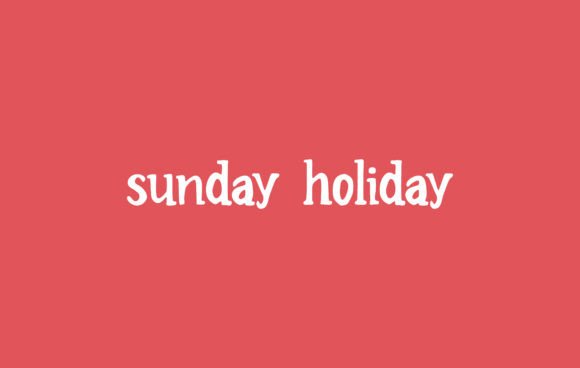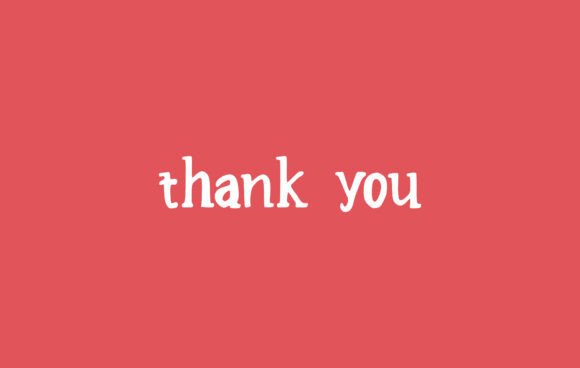
Introducing Graphiterush Font: The Ultimate Handwritten Font for Creative Projects
Are you tired of using the same old fonts for your creative projects? Look no further! Graphiterush Font is here to revolutionize your designs with its authentic handwritten style and romantic touch. This expertly designed font is sure to become a true favorite among designers and crafters, and for good reason.
What Makes Graphiterush Font Special?
Graphiterush Font is a unique and versatile font that can elevate your creative ideas to new heights. Its authentic handwritten style gives it a personal and emotive feel, making it perfect for a wide range of design projects. Whether you’re working on a magazine headline, social media post, branding campaign, wedding invitation, or card, this font is sure to make a lasting impression.
Key Features of Graphiterush Font
- Legible and Versatile: Graphiterush Font is designed to be easy to read, making it perfect for both title and body text. Its clarity and legibility ensure that your message gets across, no matter what design project you’re working on.
- Romantic Touch: This font has a romantic and whimsical feel to it, making it ideal for designs that require a touch of elegance and sophistication.
- Authentic Handwritten Style: Graphiterush Font is an authentic handwritten font, giving it a personal and unique feel that’s sure to stand out from the crowd.
Graphiterush Font is a versatile font that can be used for a wide range of design projects, including:
- Magazine Headlines: Add a touch of elegance and sophistication to your magazine headlines with Graphiterush Font.
- Social Media: Make your social media posts stand out with this unique and eye-catching font.
- Branding: Use Graphiterush Font to create a consistent and recognizable brand identity that sets you apart from the competition.
- Wedding Invitations: Add a touch of romance and whimsy to your wedding invitations with this beautiful font.
- Cards: Create personalized and unique cards for any occasion with Graphiterush Font.
Why Choose Graphiterush Font?
With so many fonts to choose from, why should you choose Graphiterush Font? Here are just a few reasons:
- Unique and Authentic: Graphiterush Font is a one-of-a-kind font that’s sure to make your designs stand out.
- Easy to Read: This font is designed to be easy to read, making it perfect for both title and body text.
- Versatile: Graphiterush Font can be used for a wide range of design projects, from magazine headlines to social media posts.
In conclusion, Graphiterush Font is a must-have for any designer or crafter looking to add a touch of elegance and sophistication to their designs. With its authentic handwritten style, romantic touch, and versatility, this font is sure to become a true favorite. Whether you’re working on a magazine headline, social media post, branding campaign, wedding invitation, or card, Graphiterush Font is the perfect choice.